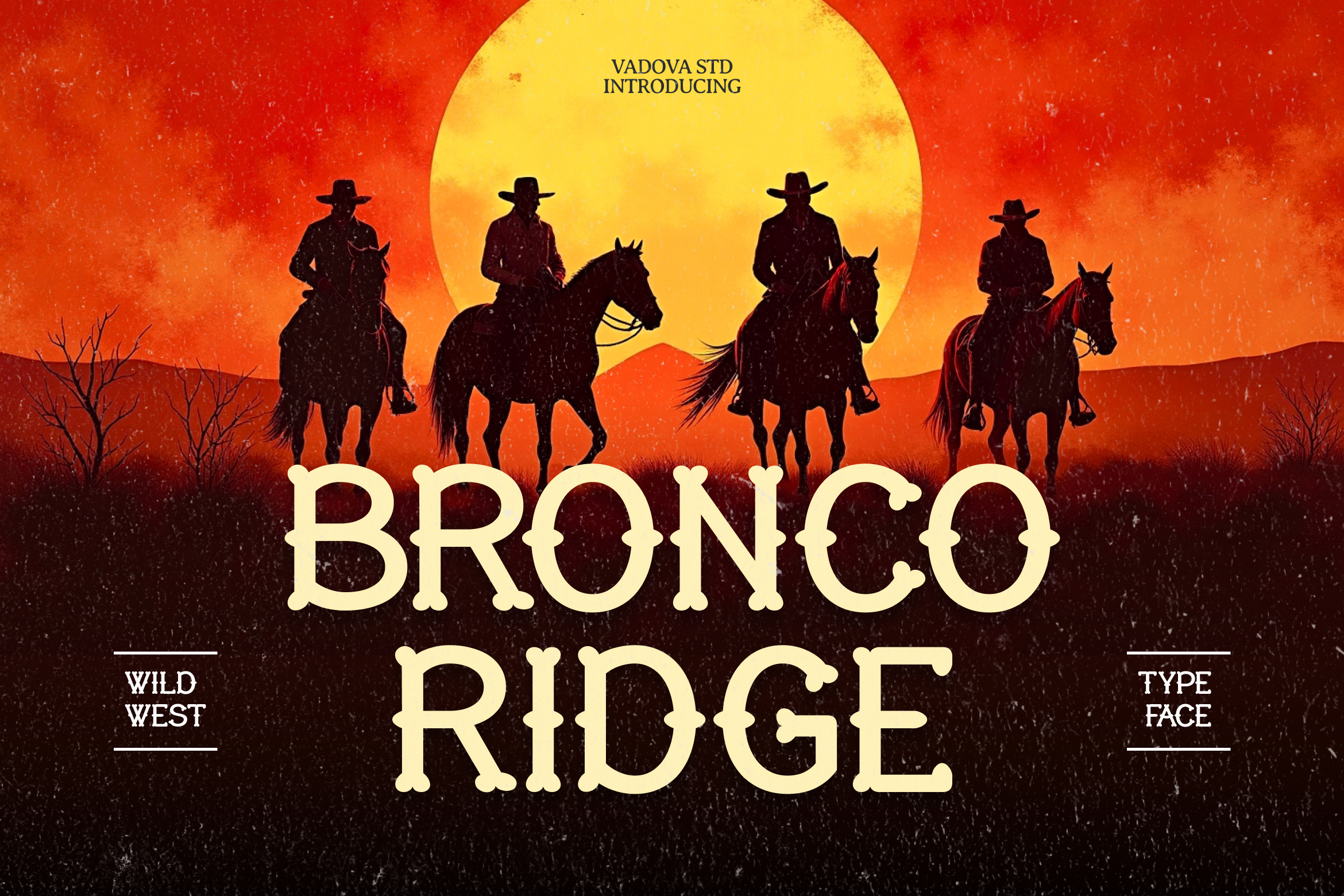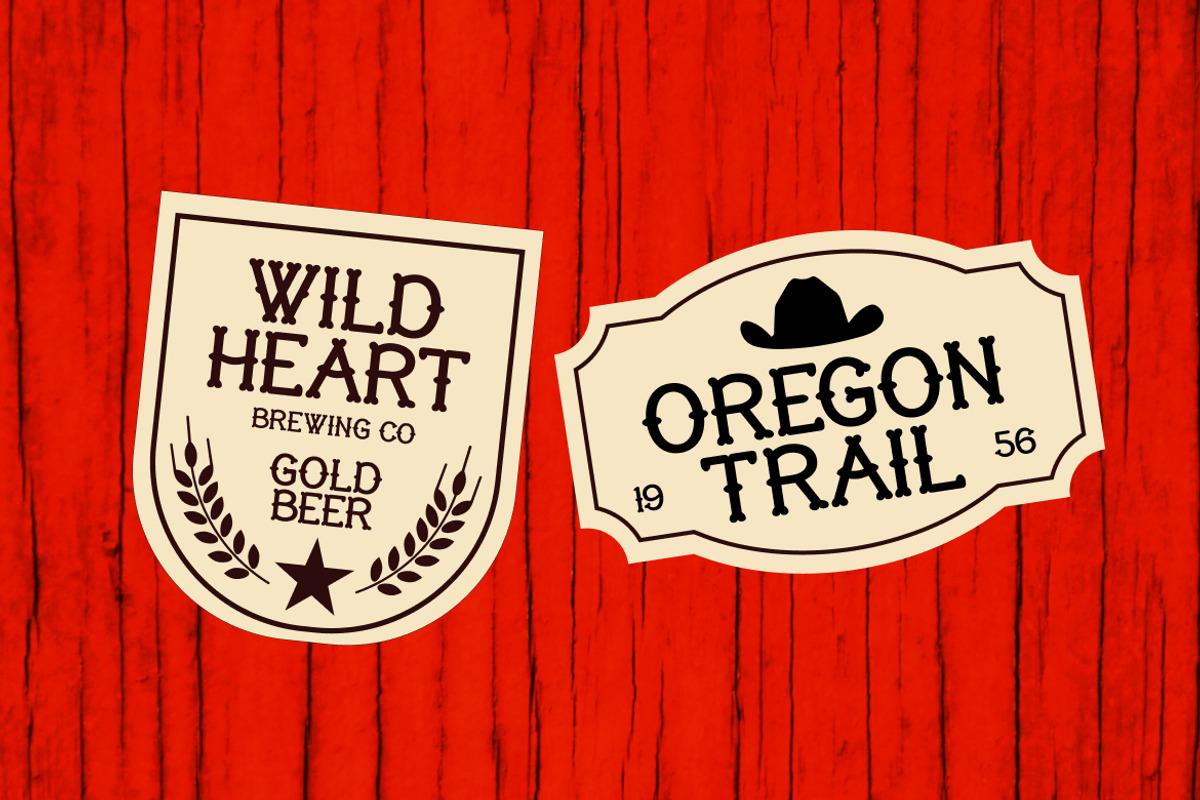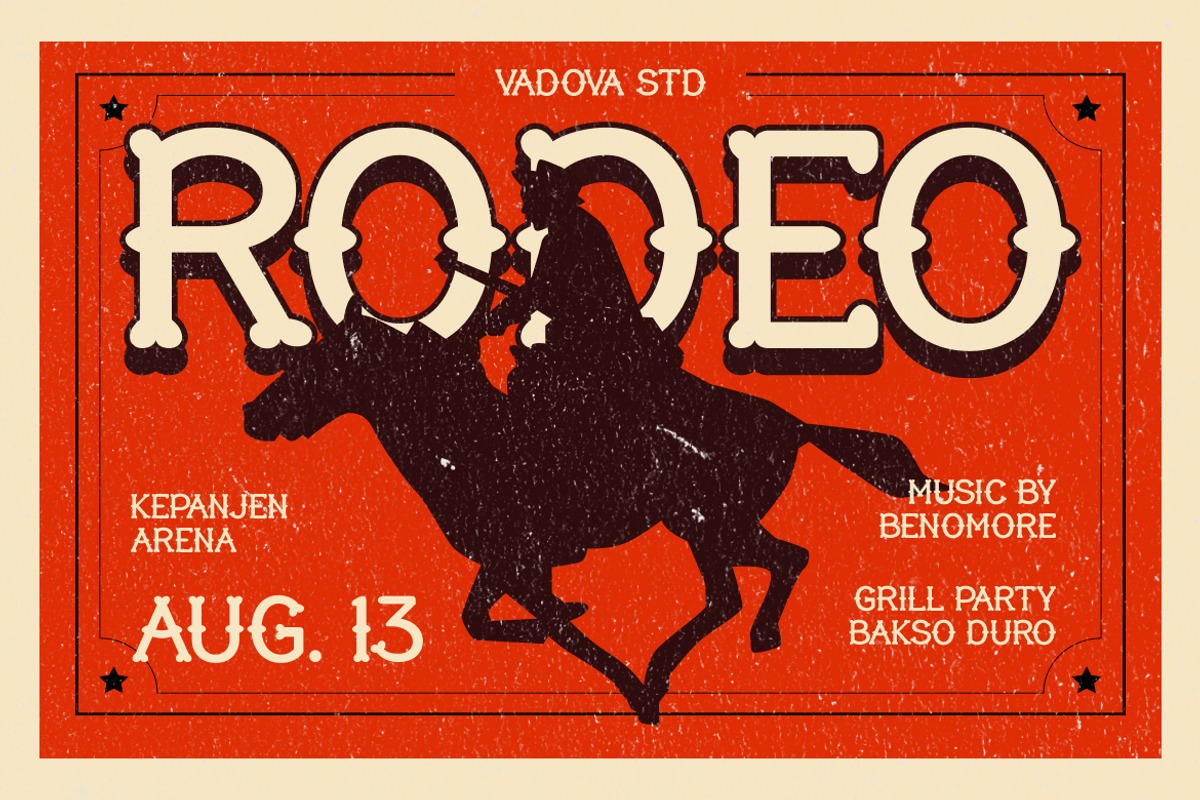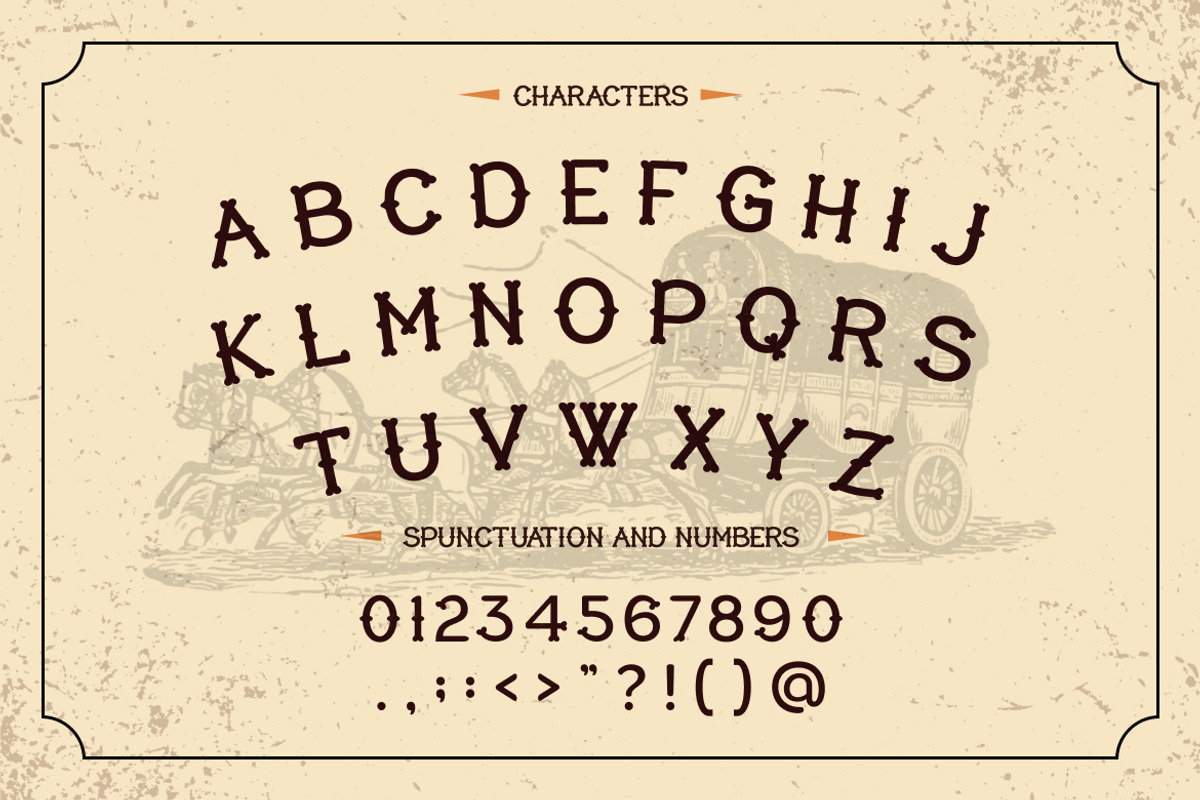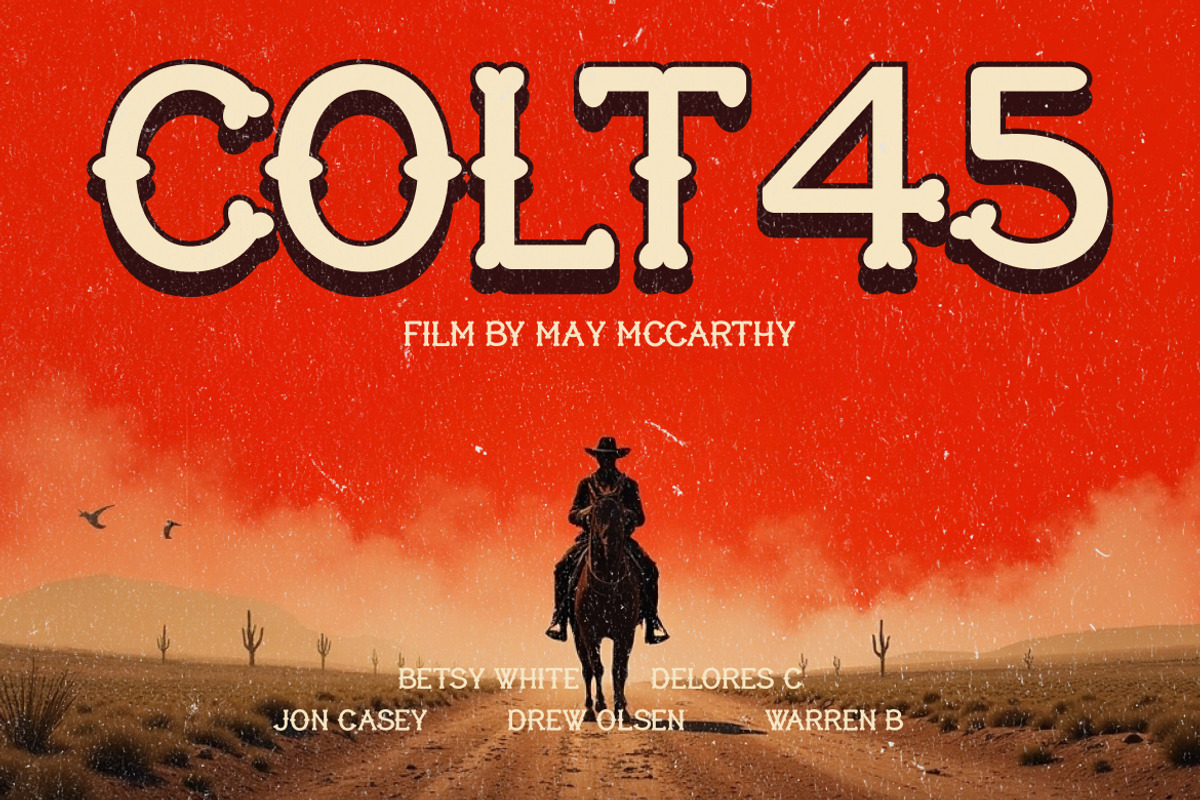
Bronco Ridge Wild West Typeface Font
Bronco Ridge is a bold western display font inspired by classic Wild West typography and vintage frontier posters. The letterforms feature decorative slab-like structures, rounded spur-style terminals, and distinctive western character shapes that evoke the spirit of old cowboy signage. This typeface includes uppercase letters, lowercase letters, numerals, and punctuation, providing essential typographic elements for themed design projects.
This font is highly relevant for creative projects that require authentic western and vintage frontier typography. It works well for western movie titles, cowboy-themed posters, rustic branding, ranch logos, country festival graphics, themed merchandise, vintage signage, and entertainment visuals where classic Wild West aesthetics help create a strong thematic identity.
- Classic western-inspired letterforms with decorative spur-style terminals
- Bold slab-like structures reflecting vintage Wild West typography
- Rounded ornamental details that enhance the cowboy aesthetic
- Strong stroke weight creating a rugged and rustic character
- Balanced spacing designed for impactful western-style display headlines
- Western-themed branding and cowboy-style logo design
- Vintage Wild West posters and movie title graphics
- Country festival posters and rustic event promotions
- Ranch, saloon, and western-themed merchandise design
- Retro packaging and themed branding with a frontier aesthetic
Bronco Ridge give your design a true western character